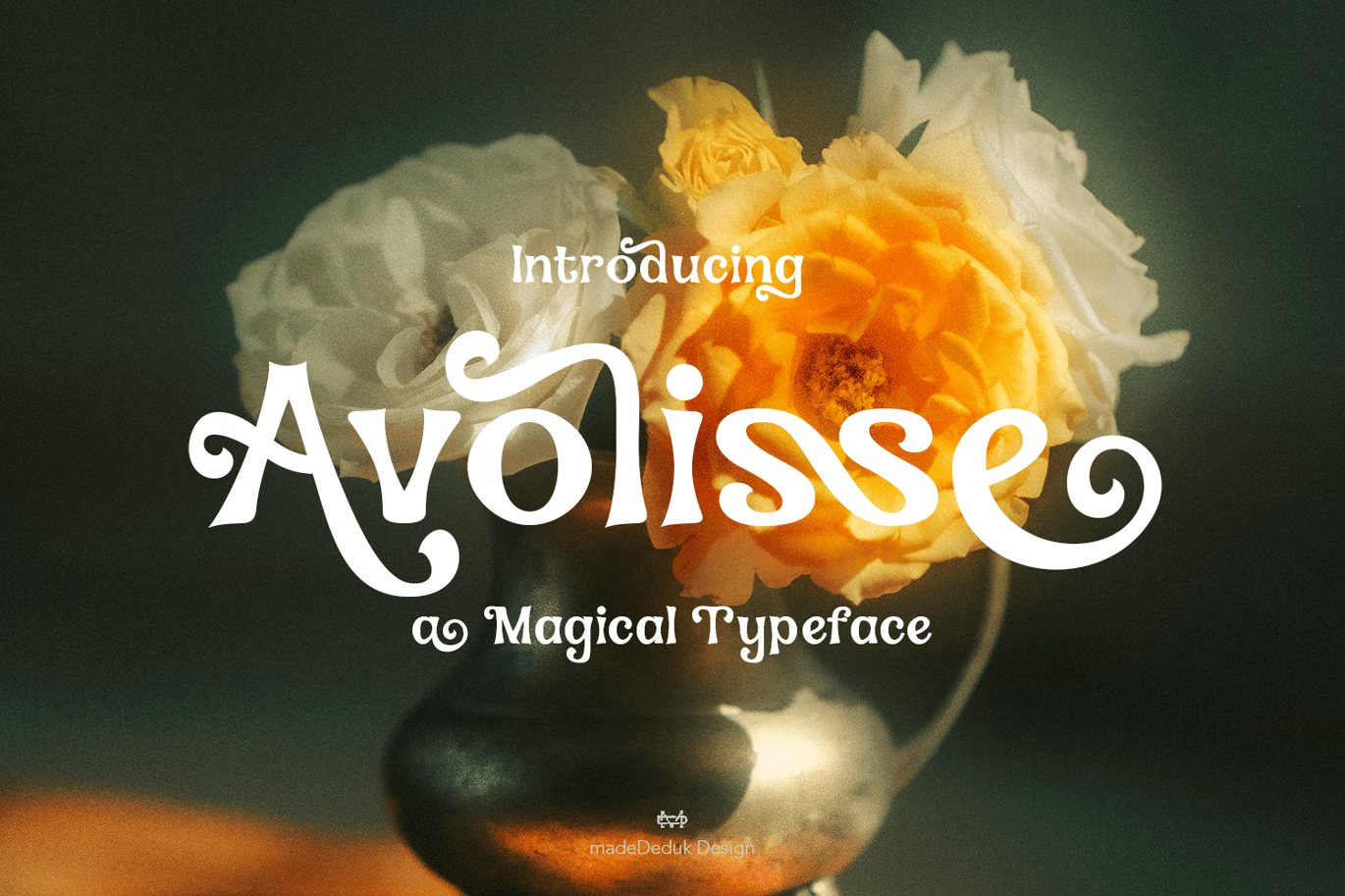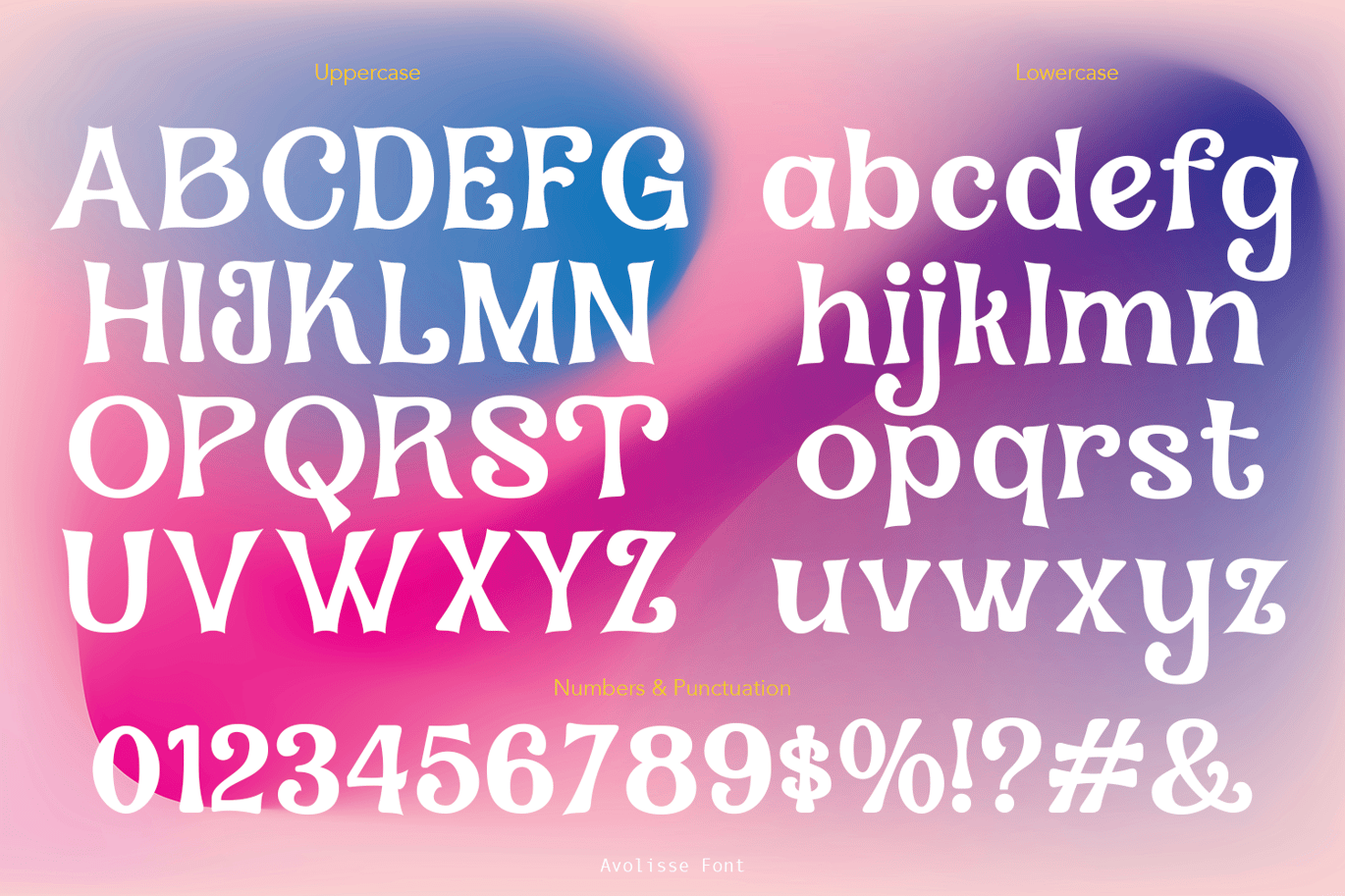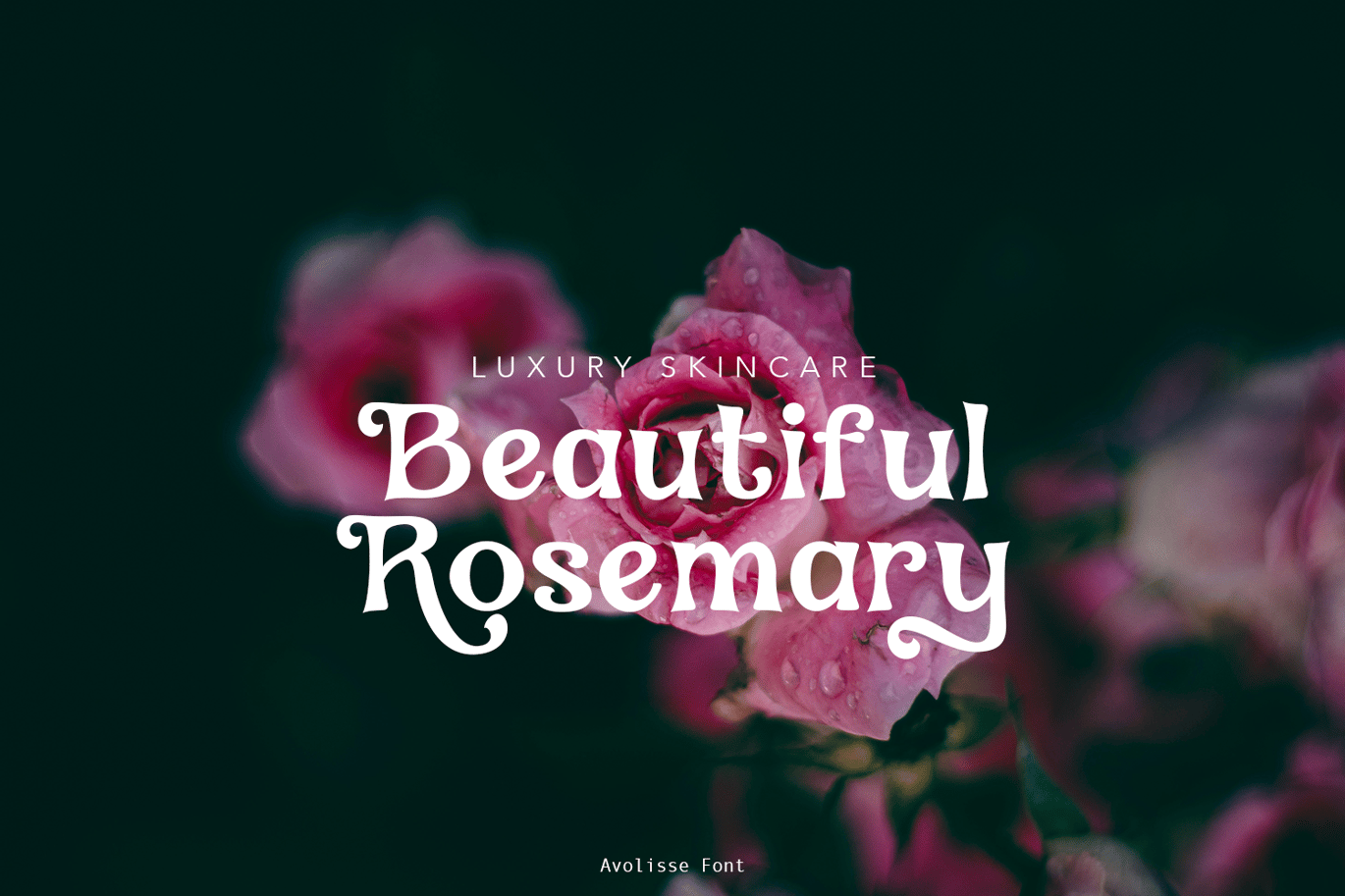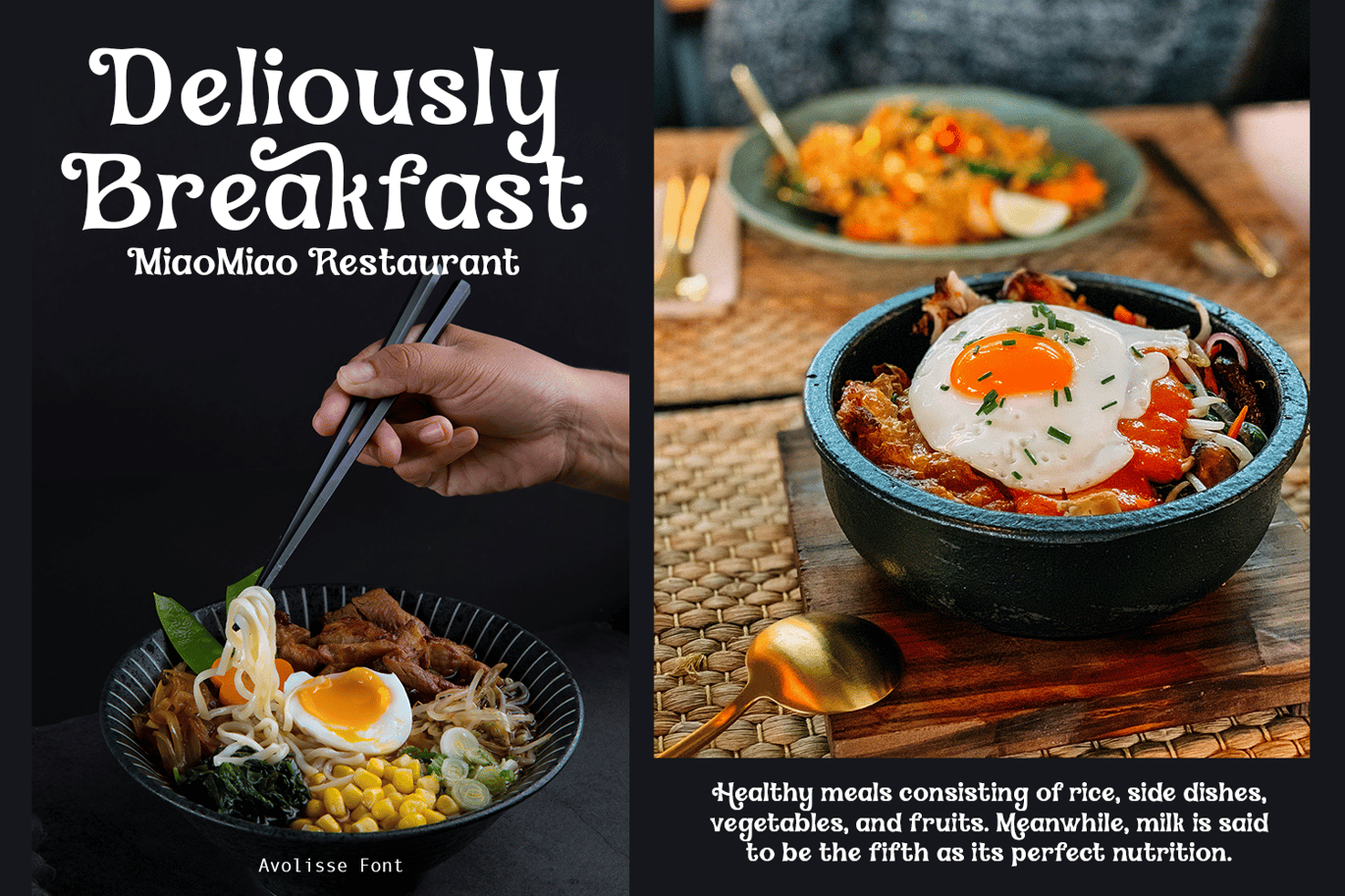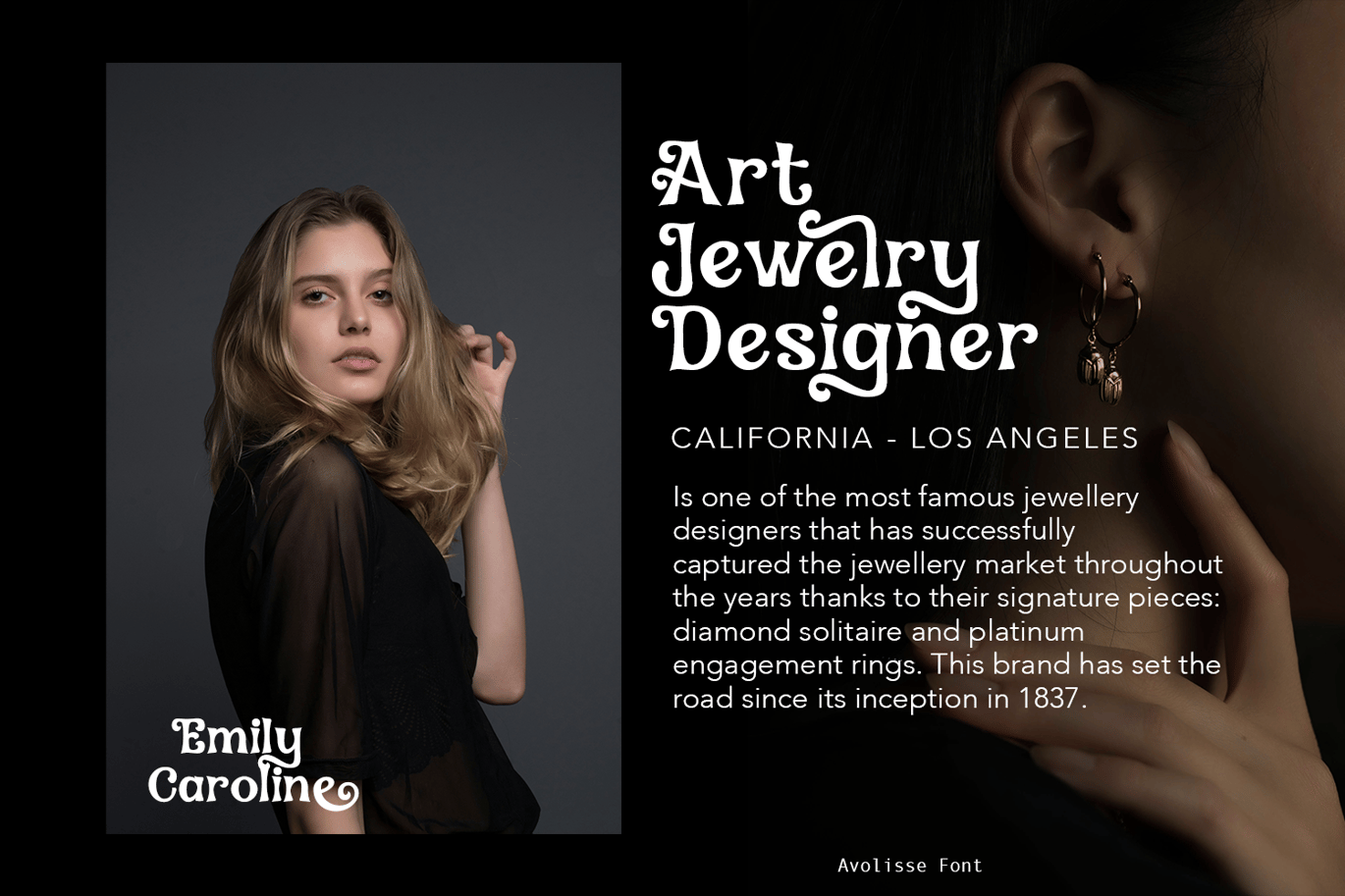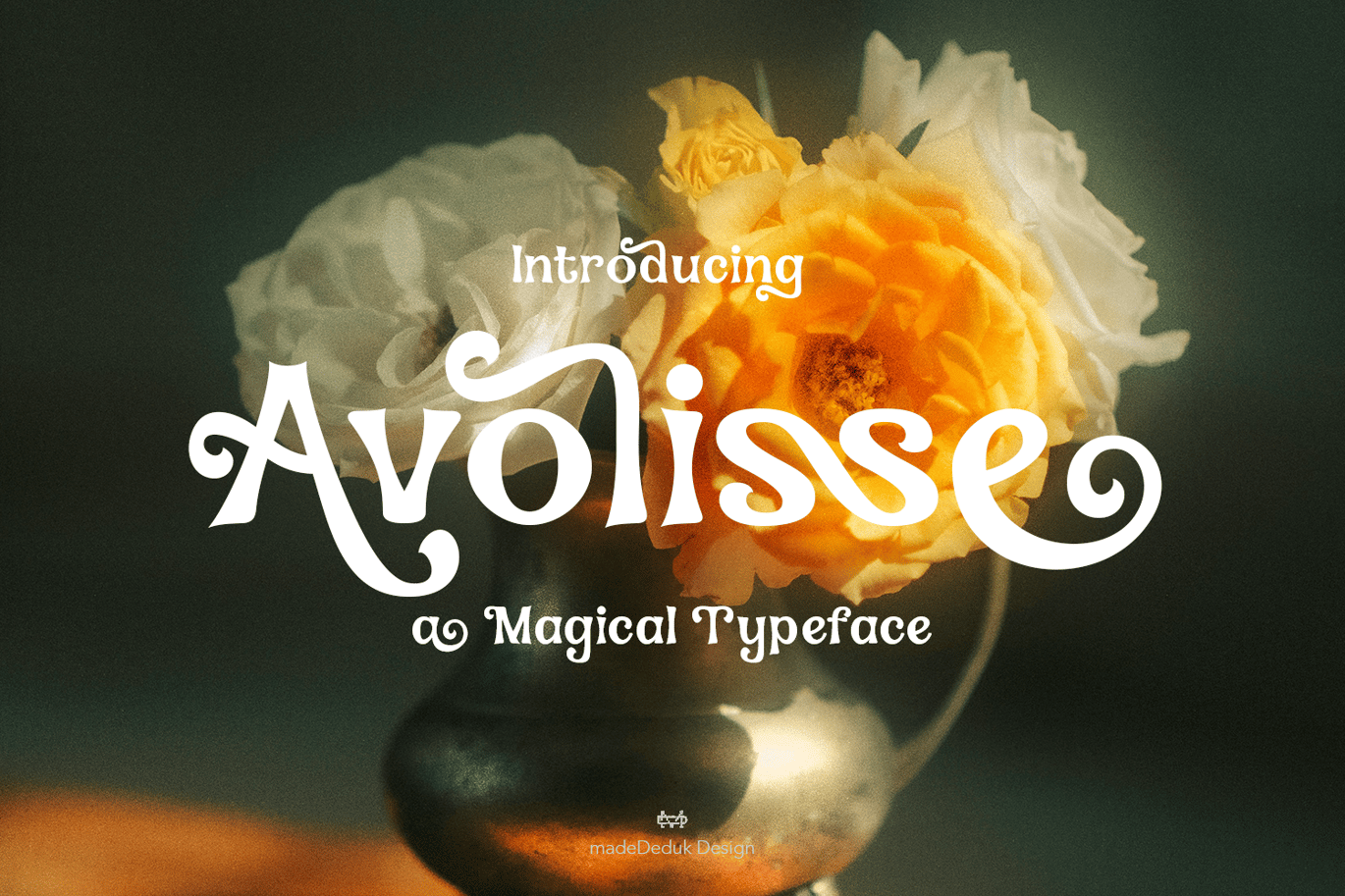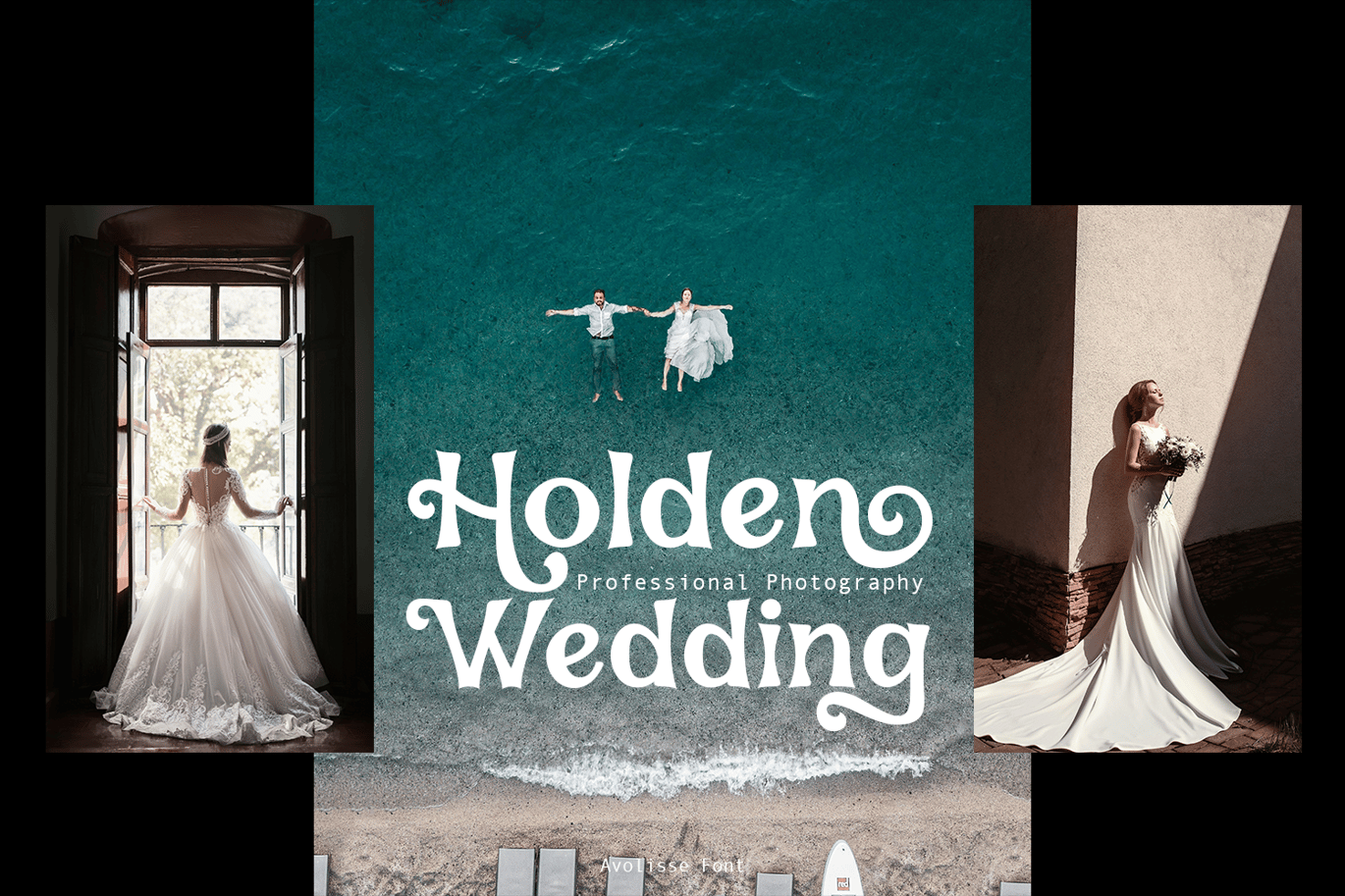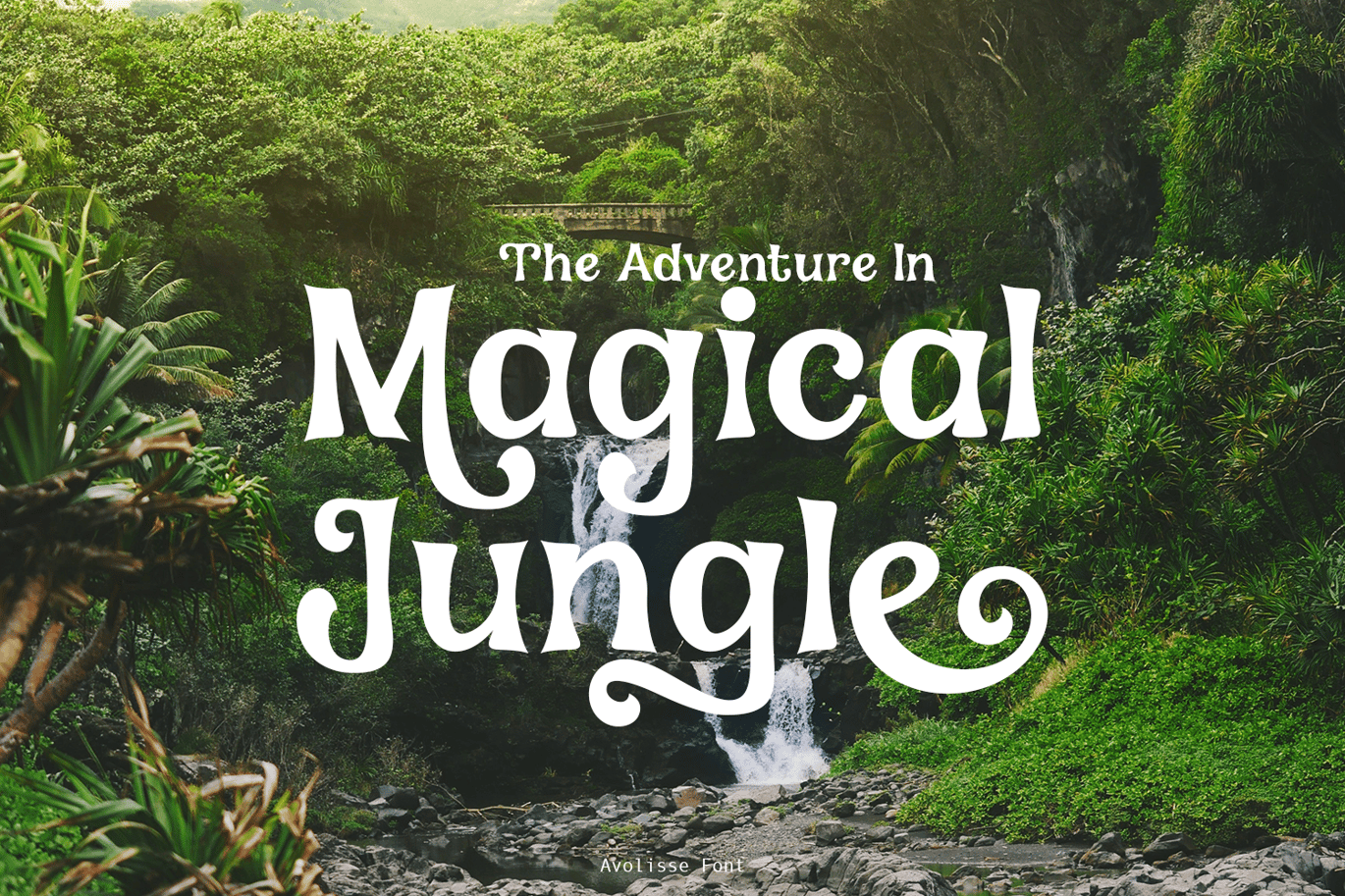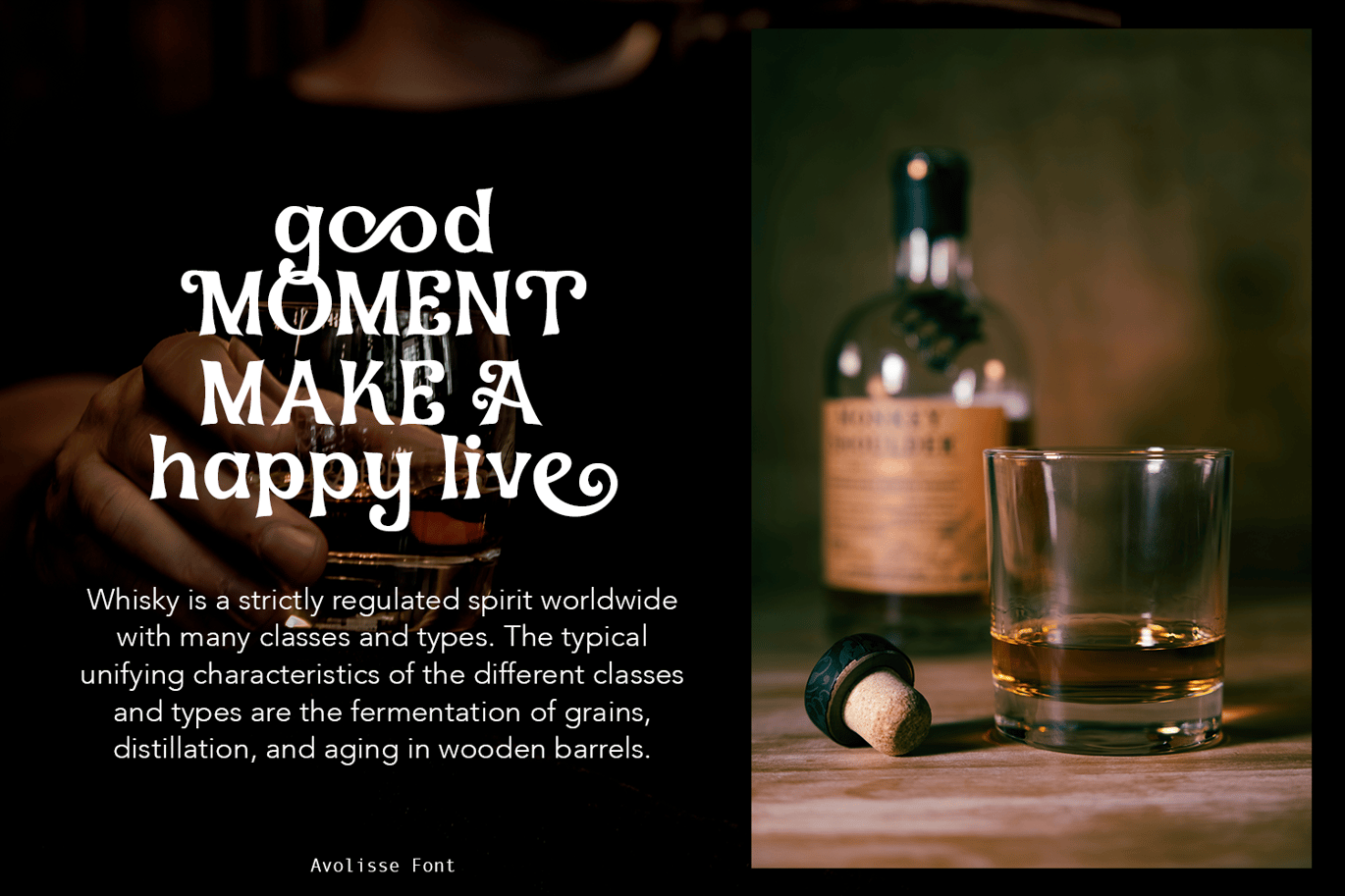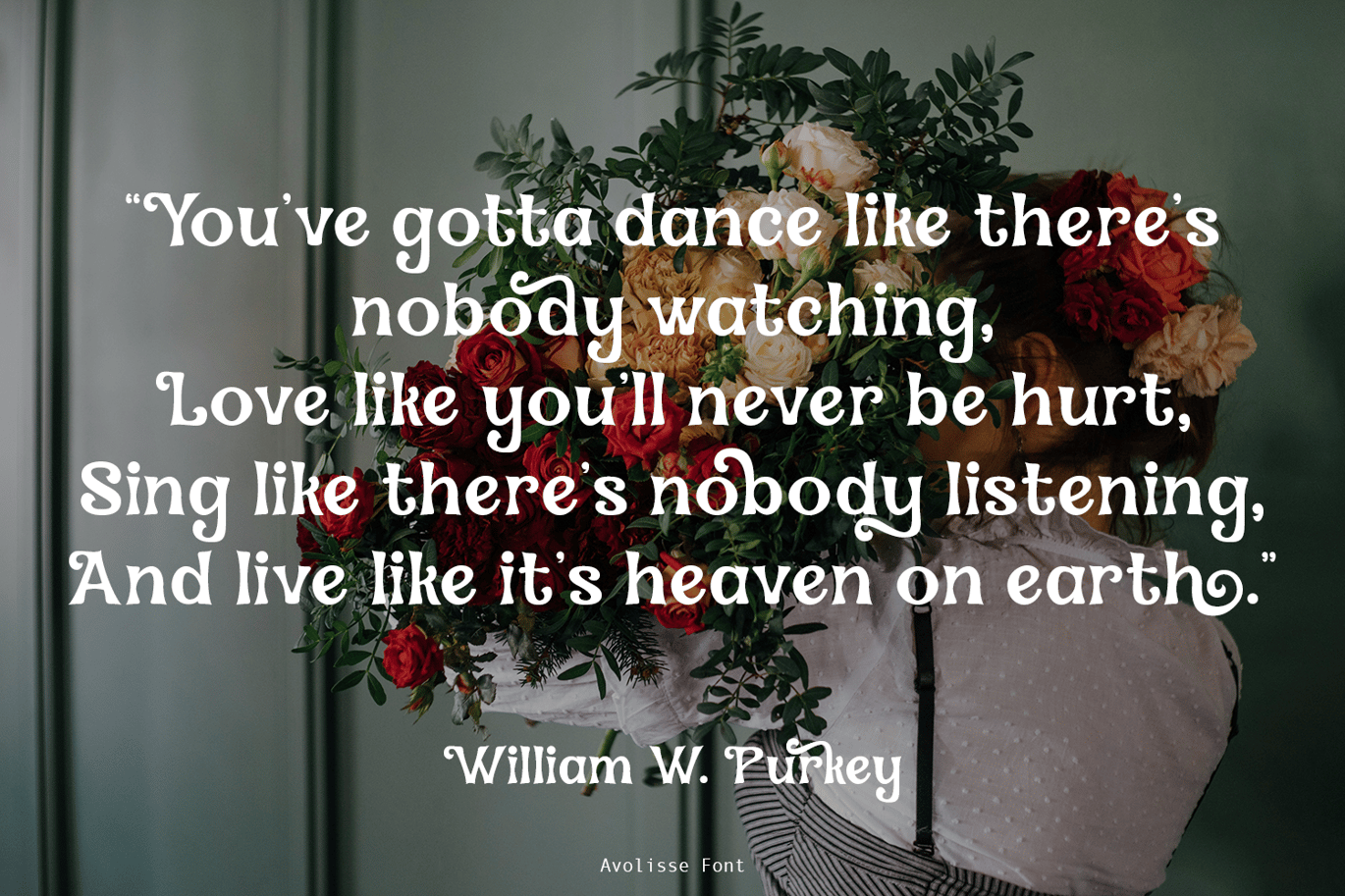
Avolisse Classic Font
Avolisse is a Magical Classic font 80’s style with sharp and blunt ends. Classic and refined you can explore and combine creating rhythm for comfortable reading. This font perfect for any projects, such logotype, stickers, greeting / wedding cards, packaging design, headlines, brand identity, t-shirt, posters, magazines, books, Instagram, websites, and many more.
Feature
- Number & Symbol
- International Glyphs
- Alternative